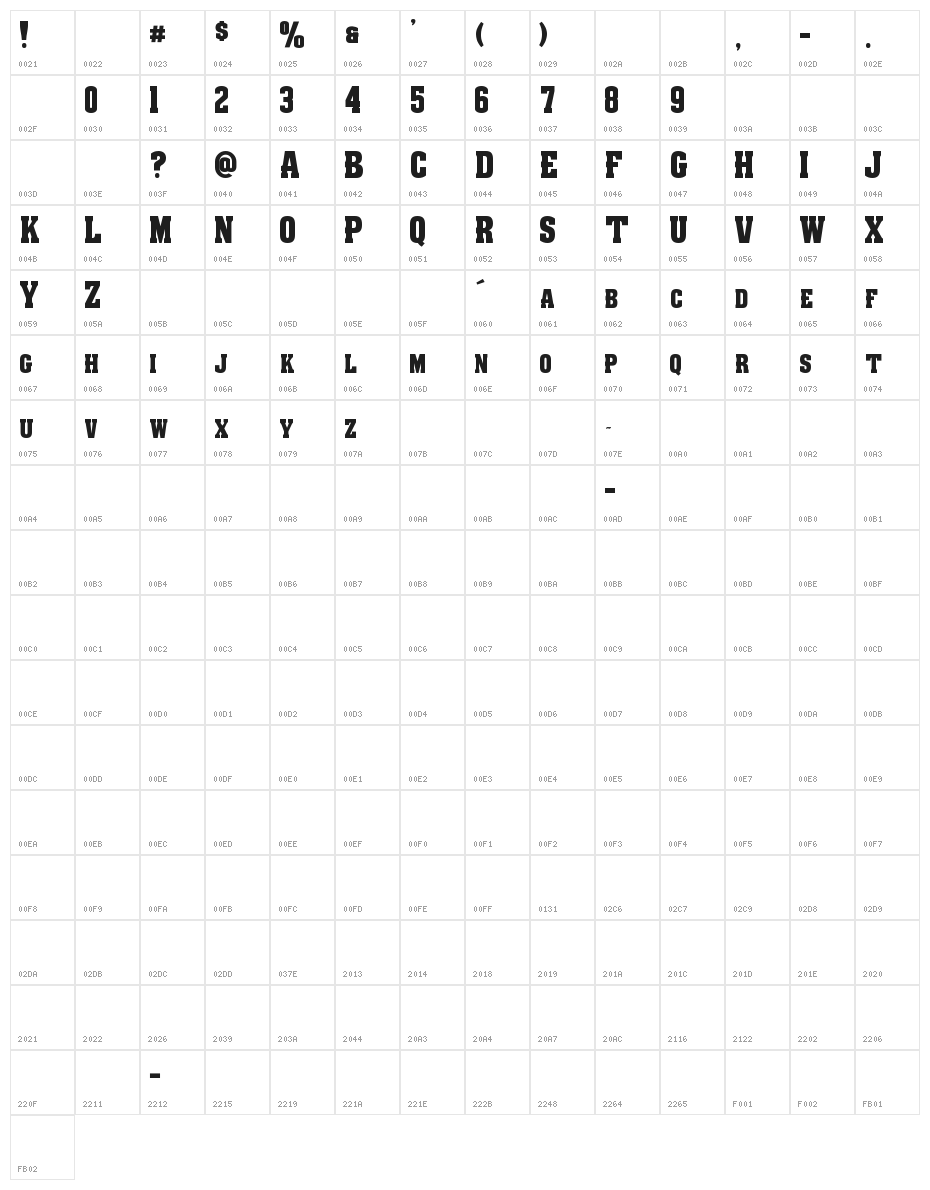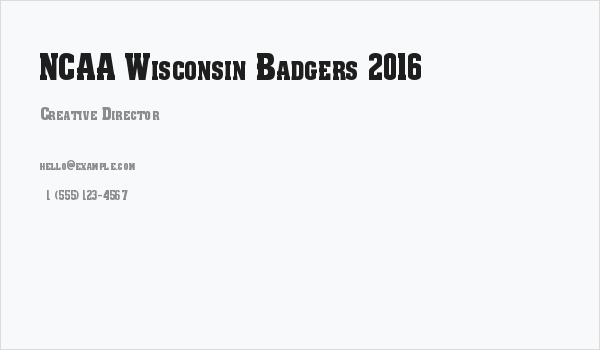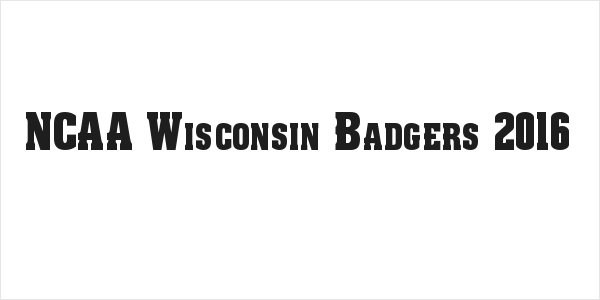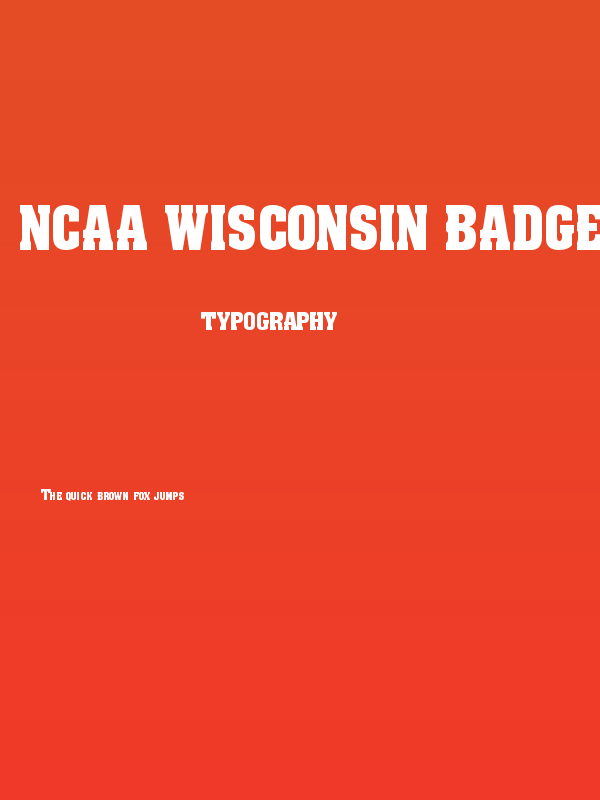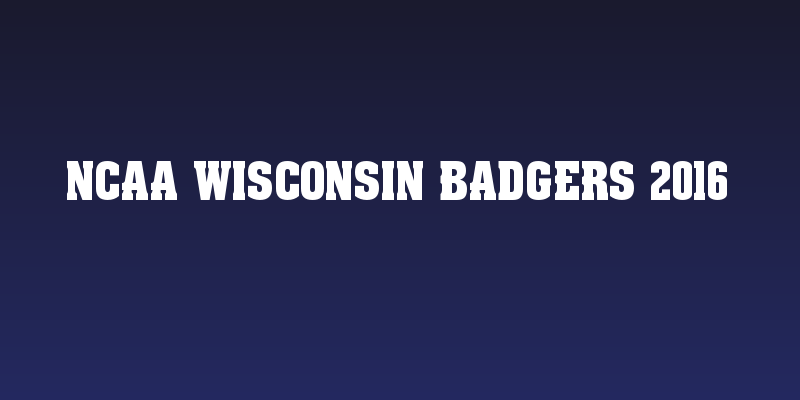
NCAA Wisconsin Badgers 2016 Font
NCAA Wisconsin Badgers 2016 Description
This font features a bold and robust slab serif style, characterized by thick, block-like serifs and a strong presence. The uppercase letters are uniform in height, providing a sense of stability and strength. The numbers are equally bold, ensuring readability and impact. The special characters are designed to match the overall boldness, making them stand out effectively. This font is ideal for creating a commanding and authoritative look, suitable for sports branding or any project requiring a powerful visual statement.
| Overall Style | Bold and Commanding |
| Use Case | Headlines, Logos, Sports Branding |
| Proposed Projects | Ideal for sports branding, posters, headlines, and any project needing a strong visual impact. |